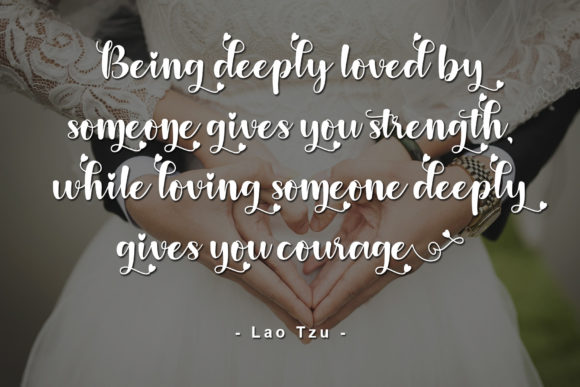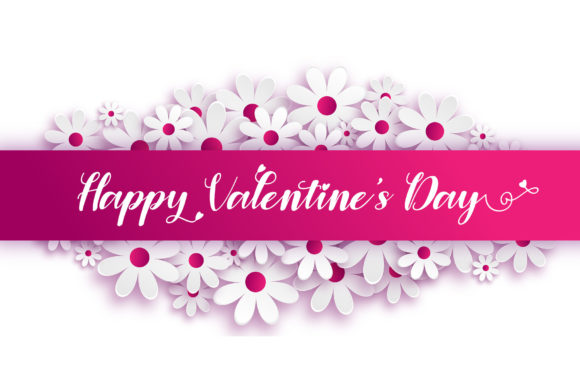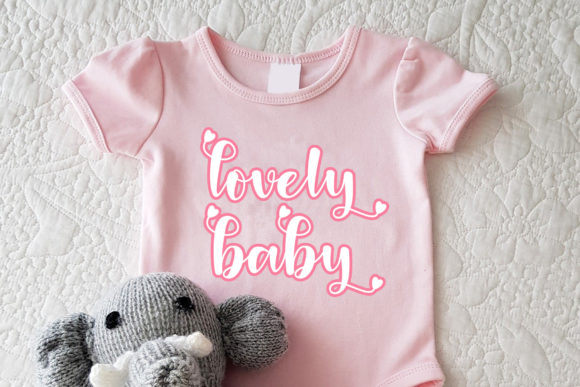
Introduction to Dear Sweetheart Font
Dear Sweetheart is a romantic and sweet script font with characters that dance along the baseline.
It will add a luxury spark to any design project that you wish to create This font is PUA encoded, which means you can access all of the amazing glyphs and ligatures with ease.